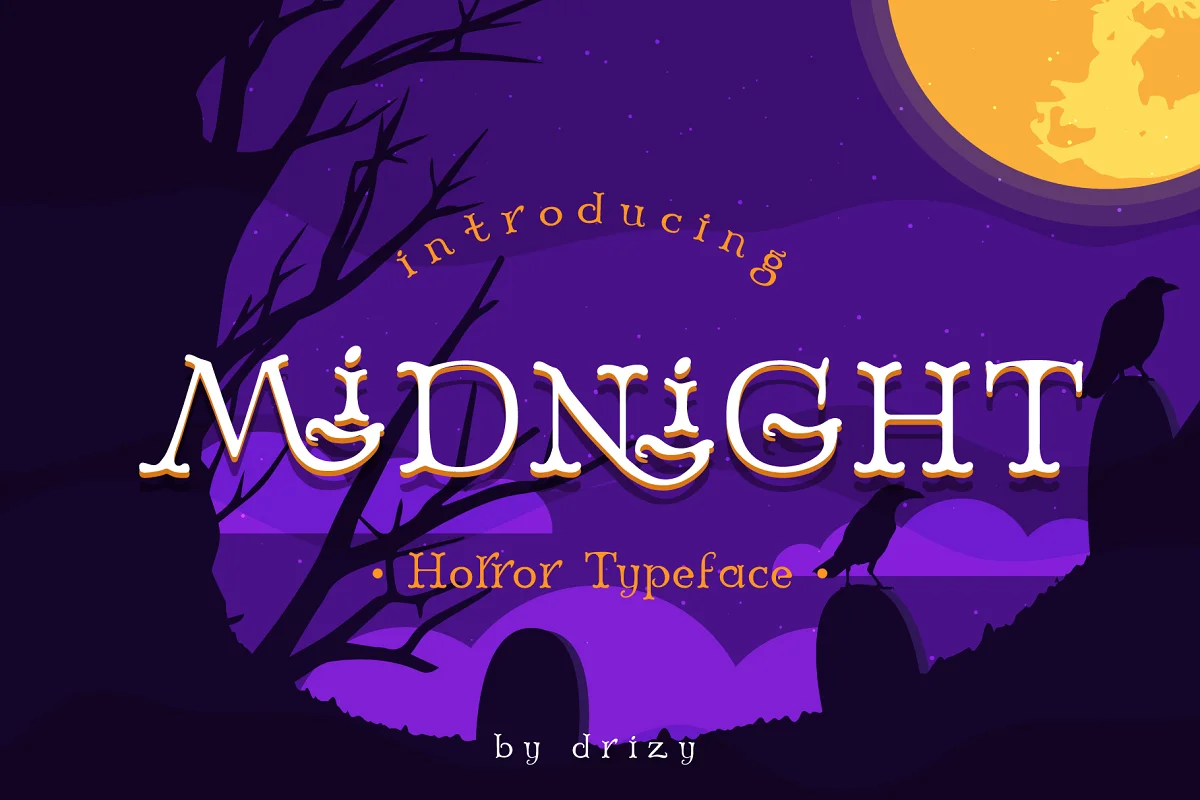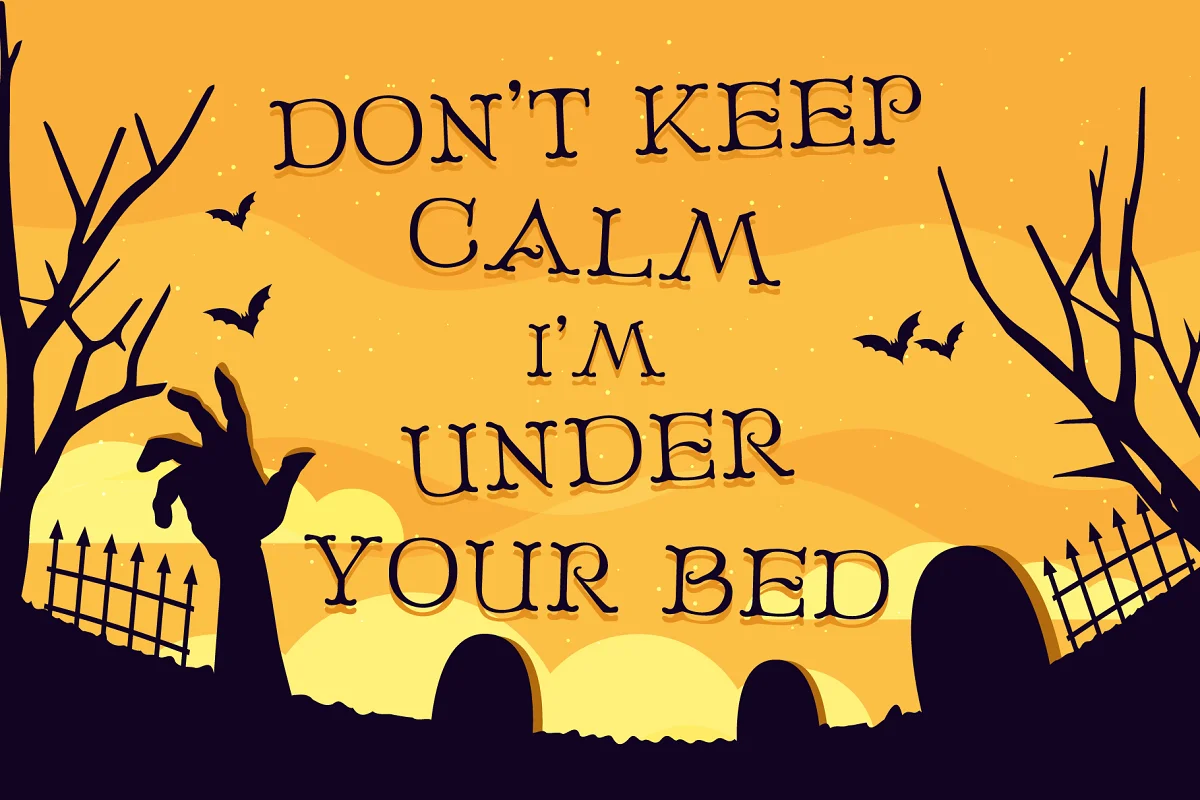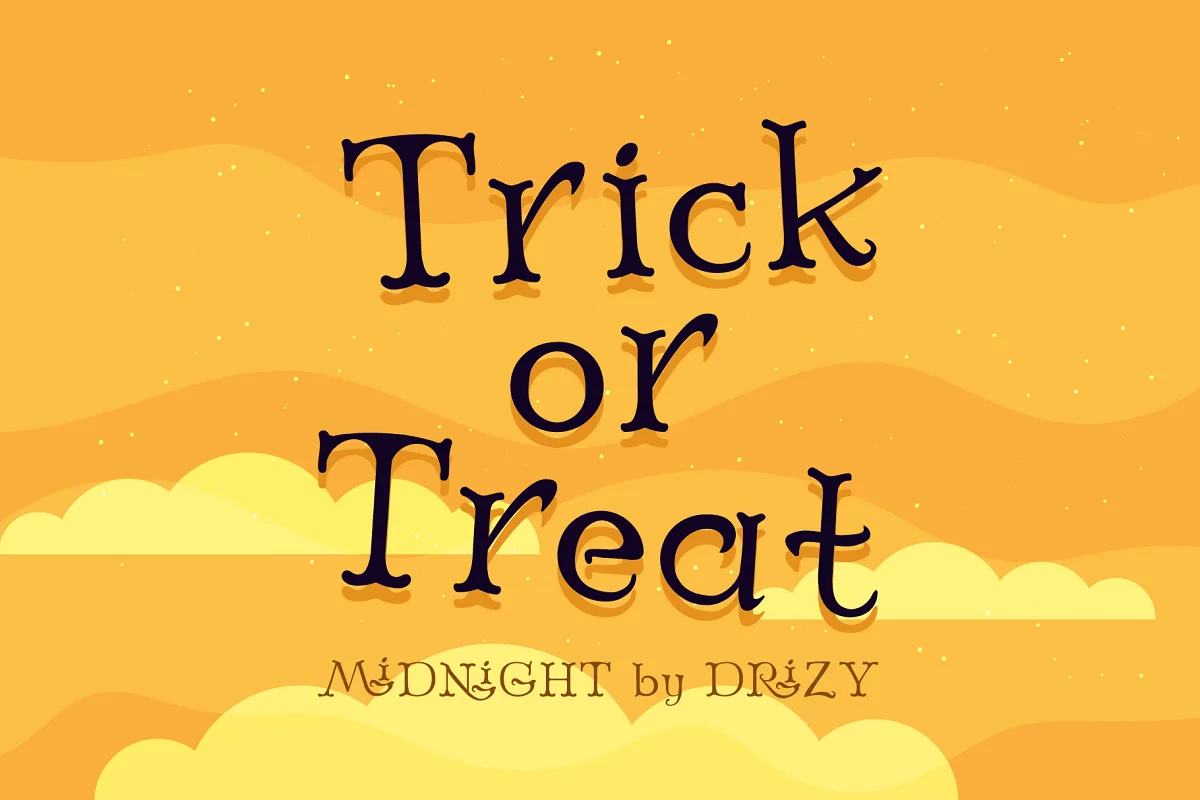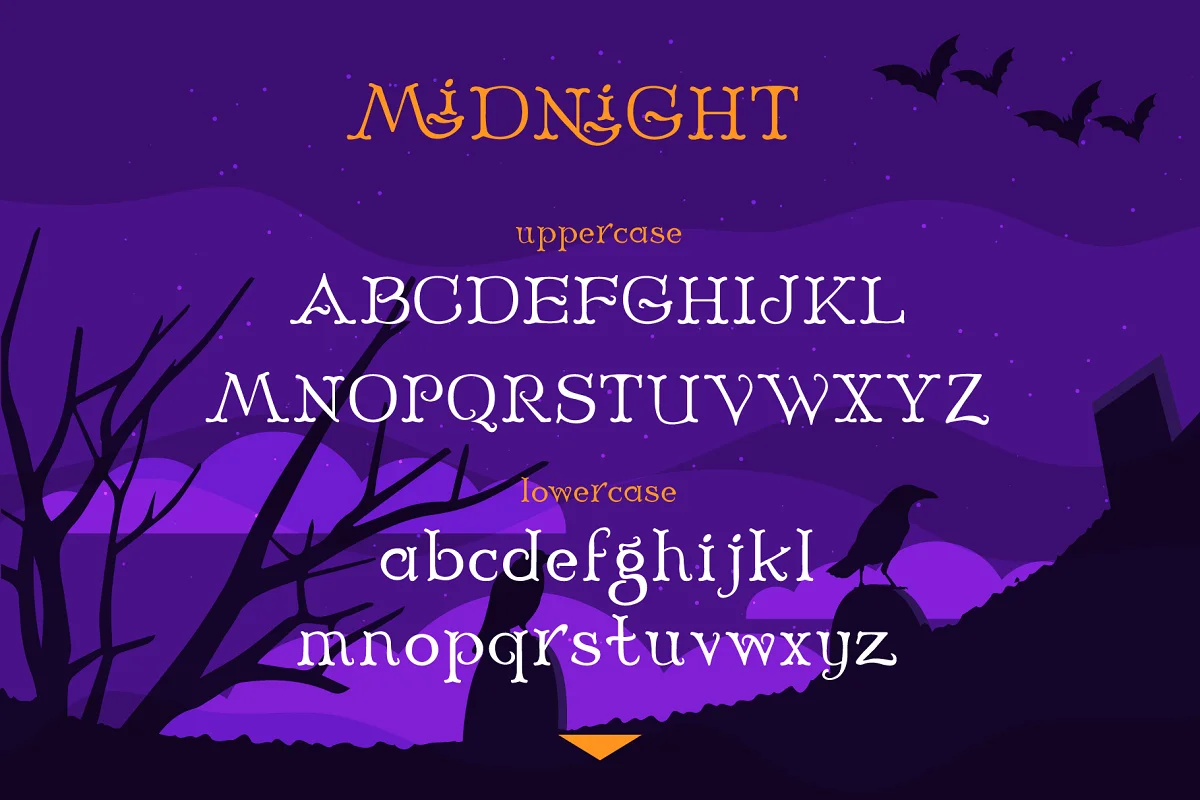
About the Midnight Font
Midnight is a fancy horror typeface, adapted from melted candle & bone shape. The characteristic of these fonts will act to create an ambiance of horror.
The style is unique & classy. Midnight is as comfortable on a Halloween as in a children’s book cover, flyer, poster, greeting cards, packaging, printed quotes, cover album, logos, etc.